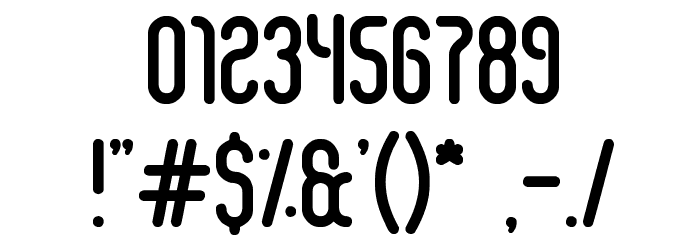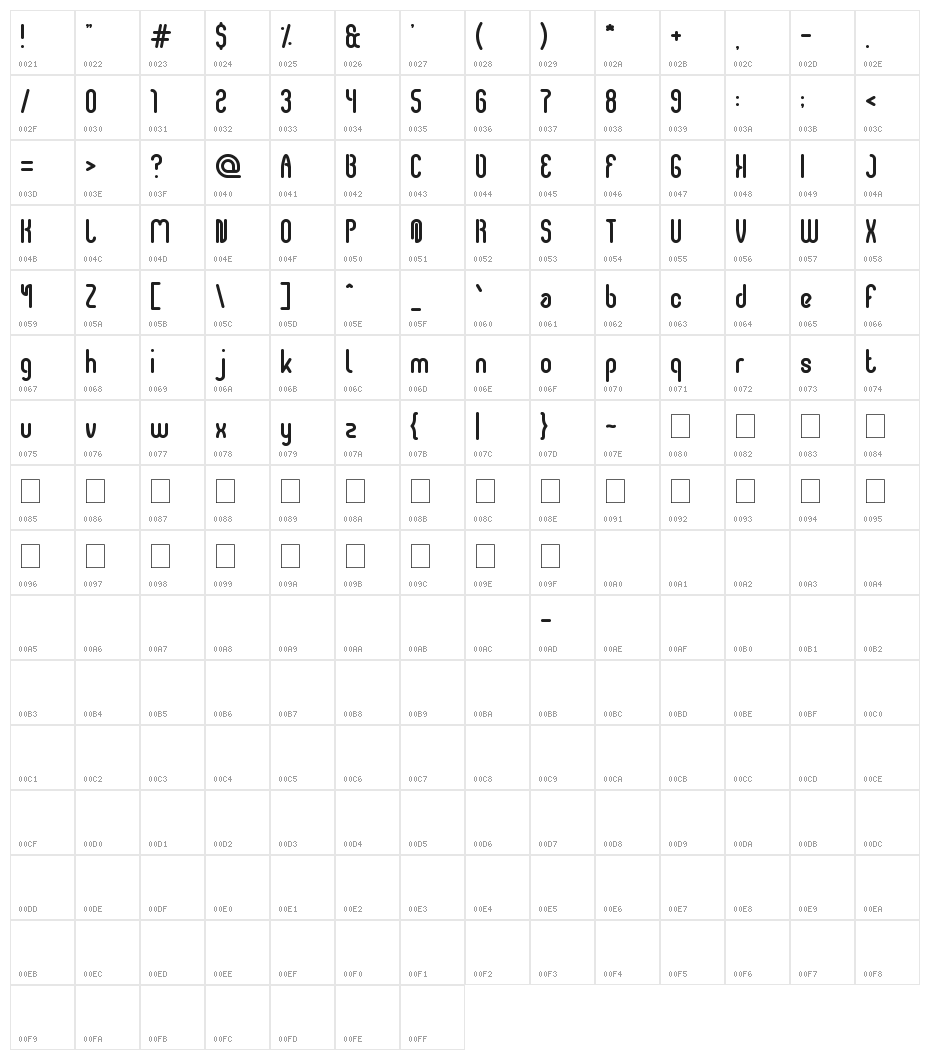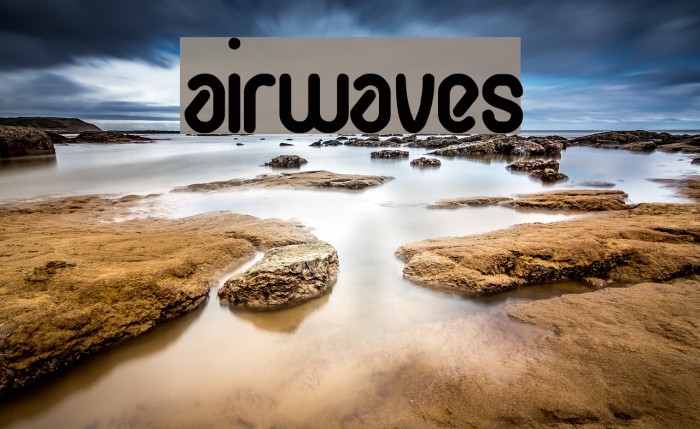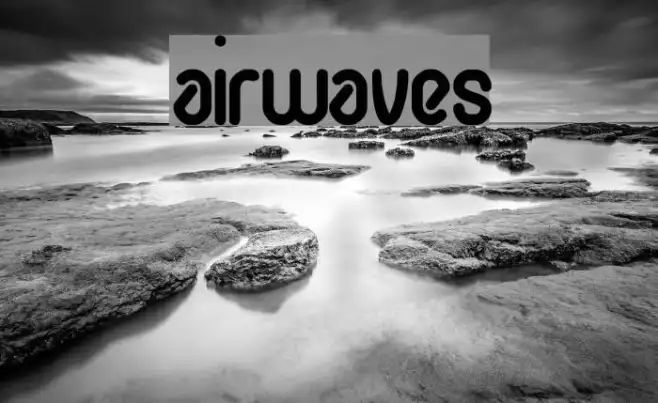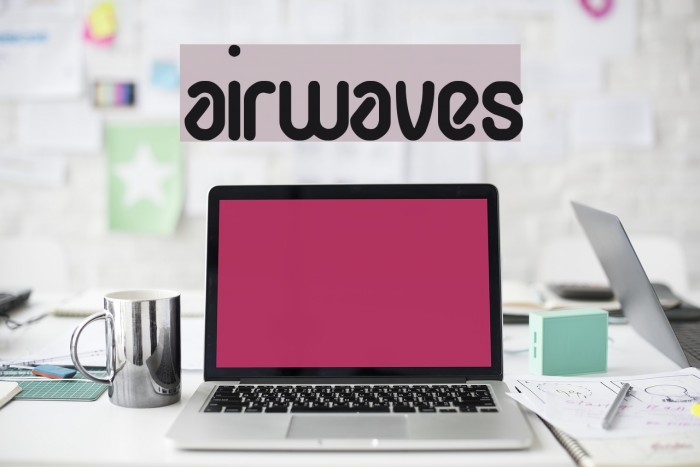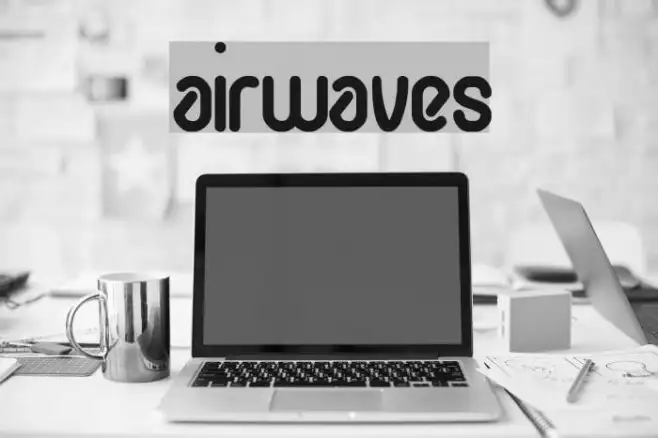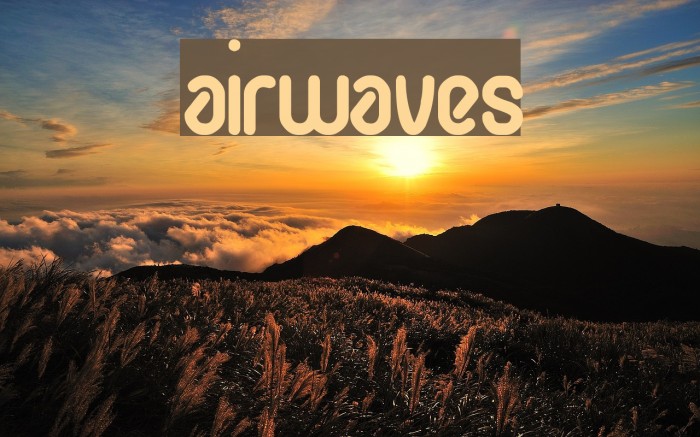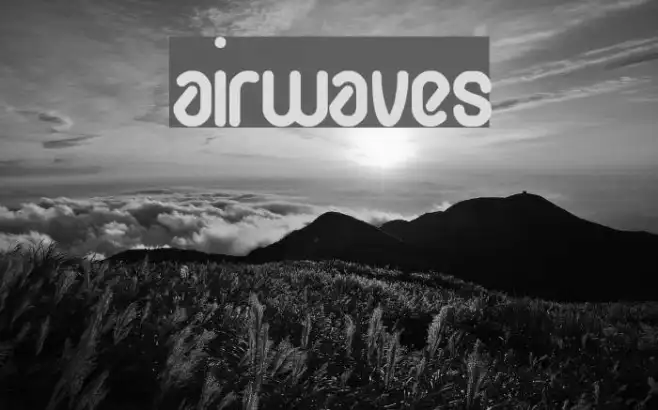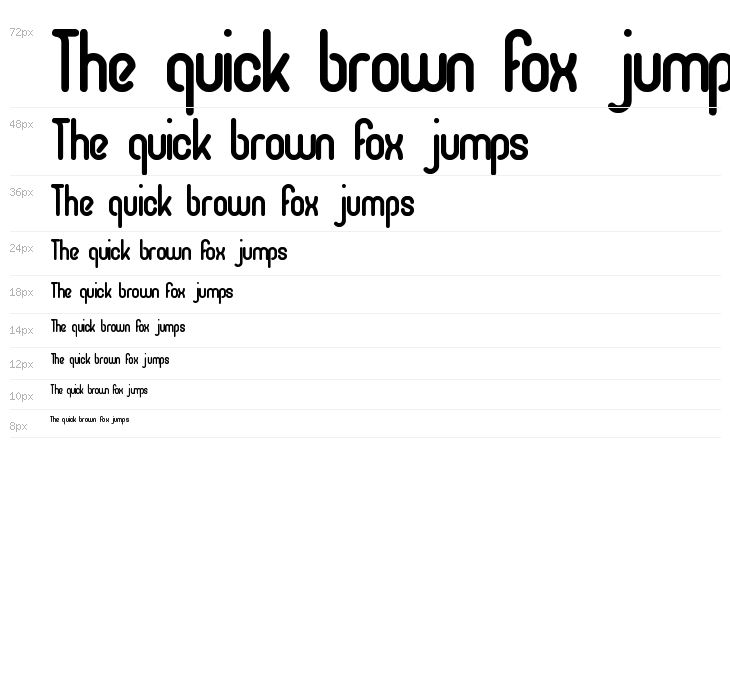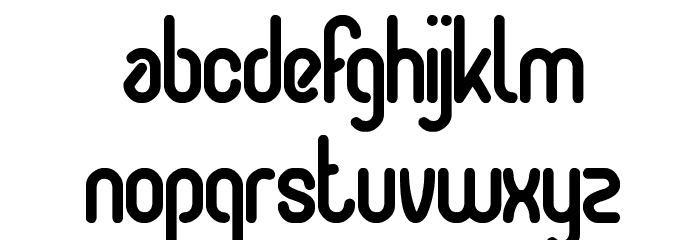
airwaves Font
airwaves Description
This font features a unique, rounded style with a modern and playful aesthetic. The characters are bold and have a consistent stroke width, giving them a uniform appearance. The rounded edges and smooth curves create a friendly and approachable look. The uppercase letters are slightly taller than the lowercase, maintaining a consistent width throughout. Numbers and special characters follow the same design principles, ensuring a cohesive look across all elements. This font is ideal for projects that require a contemporary and fun vibe, making it suitable for branding, advertising, and creative designs.
| Use Case | Logos, Headlines, Creative Designs |
| Proposed Projects | Ideal for branding, advertising, creative designs, and playful projects. |